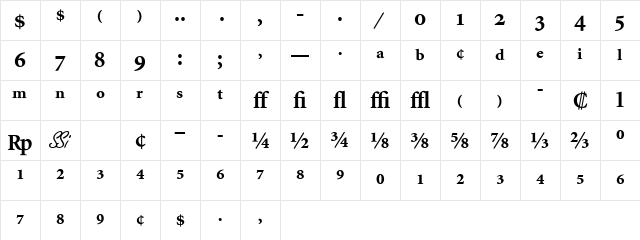
Complete Atlantix Pro Black SSi Bold glyph index. Displaying only characters natively supported by Atlantix Pro Black SSi Bold font.
Atlantix Pro Black SSi is a composed and adaptable typeface that performs quietly and consistently across a wide range of design contexts. Its bold stroke weight gives it real presence on the page.